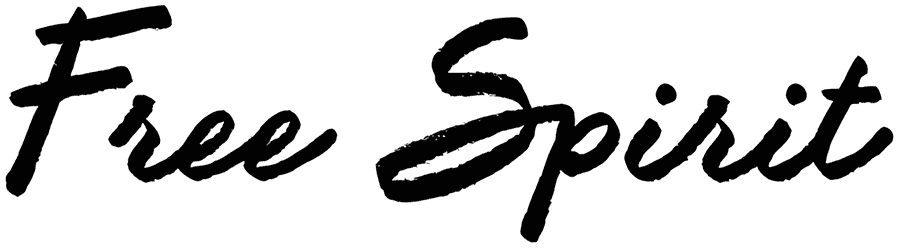
Free Spirit Font
Since each font tells a unique story, you must select the most cohesive one according to the vibe of your work, and in this regard, a lovely script font such as Free Spirit would look insanely fit for flyers, street posters, digital banners, or business cards. Considering the angular and crooked characters of this handwritten font, it shares a feeling of momentum, fierceness, and tenderness.